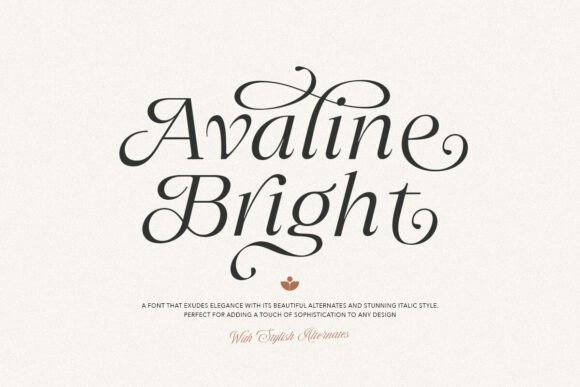
The Elusive Font: A Designer’s Journey with Avaline Bright
I still remember the countless hours I spent searching for the perfect font for a wedding invitation project. My client wanted something elegant, sophisticated, and modern, but not too over-the-top. I scrolled through font after font, but nothing seemed quite right. That was until I stumbled upon Avaline Bright, a luxury and modern italic font that instantly caught my eye. In this article, I’ll share my experience with Avaline Bright, its features, and how to make the most of this beautiful font.
An Honest Review of Avaline Bright
Avaline Bright has become a staple in my font collection, and here’s why:
- ✨ Elegant and sophisticated: Avaline Bright exudes luxury and refinement, making it perfect for high-end designs.
- ✅ Multilingual support: This font supports multiple languages, making it a great choice for global designs.
- ✨ Stylish alternates: Avaline Bright comes with beautiful stylistic alternates that can elevate your design and add a touch of uniqueness.
However, no font is perfect, and Avaline Bright has a few quirks:
- ⚠️ Limited use in body text: While Avaline Bright is stunning in headings and titles, it may not be the best choice for body text due to its italic nature.
- 🤔 Requires OpenType features: To get the most out of Avaline Bright, you’ll need to use OpenType features, which can be a bit tricky for beginners.
The Story Behind Avaline Bright
Avaline Bright was designed with the intention of creating a luxurious and modern font that would cater to the needs of designers looking for a sophisticated and elegant typeface. The designer aimed to create a font that would be versatile and adaptable to various design projects, from wedding invitations to logotypes and quote posts.
| What is Avaline Bright? | Avaline Bright is a luxury and modern italic font based on serif, designed for elegant and sophisticated designs. |
| Is Avaline Bright suitable for body text? | While Avaline Bright can be used for body text, it’s primarily designed for headings and titles due to its italic nature. |
| Does Avaline Bright support multilingual languages? | Yes, Avaline Bright supports multiple languages, making it a great choice for global designs. |